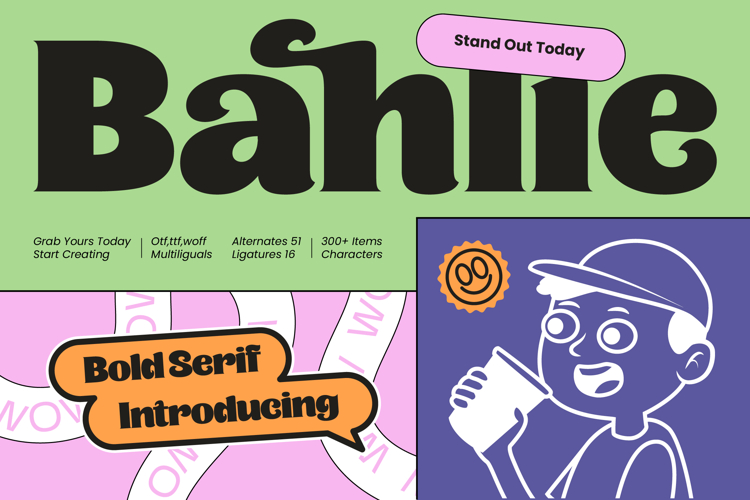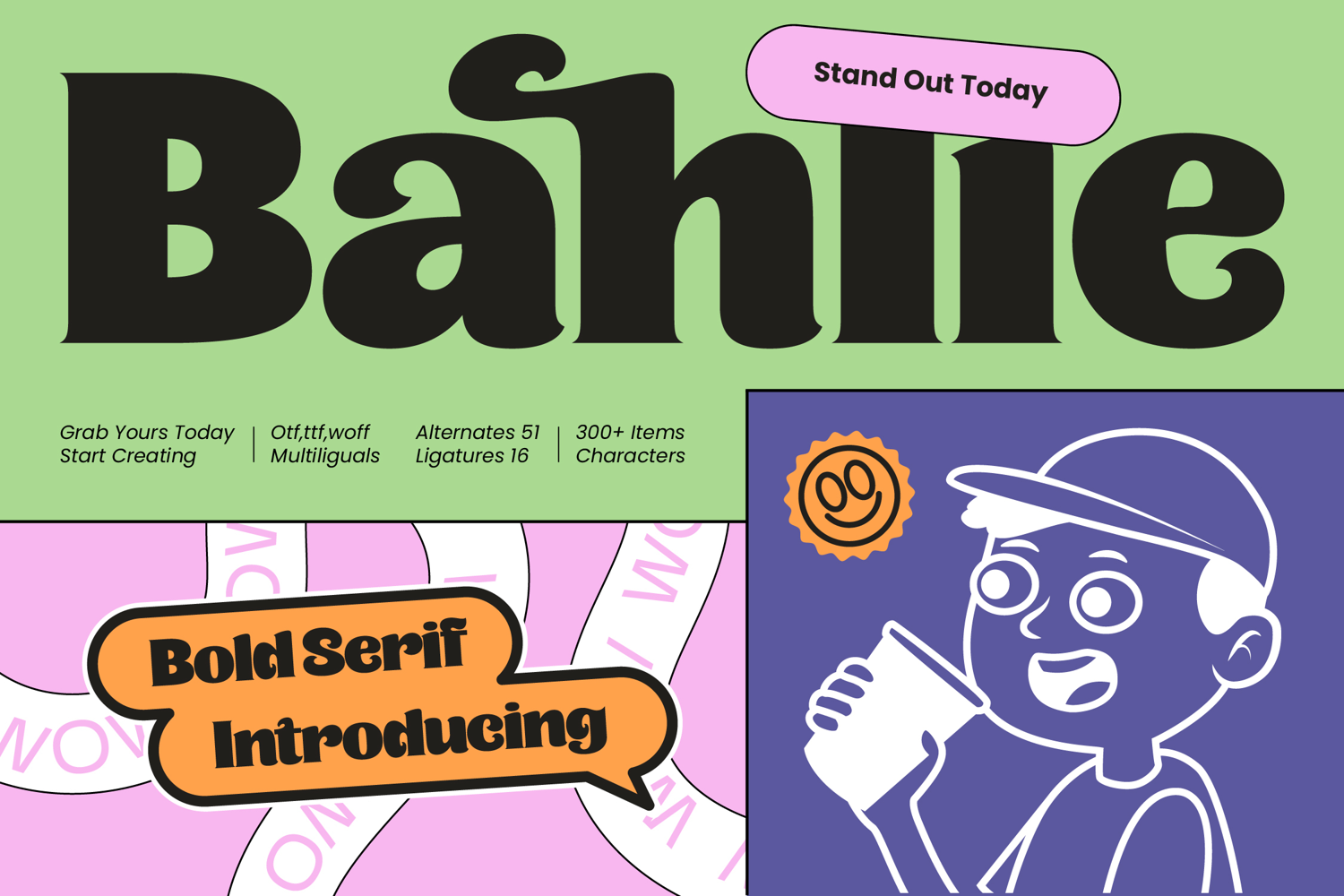
Bahlie - Groovy Bold Display Serif
Elevate your visual identity with a typeface that demands attention and exudes confidence. Bahlie - Groovy Bold Display Serif is a masterclass in retro-inspired typography, blending nostalgic 70s aesthetics with a modern, high-contrast finish. Its bold, fluid curves and commanding display characteristics create a powerful presence that is both playful and authoritative. This typeface is meticulously engineered for impact, ensuring your headlines resonate with a dynamic visual rhythm that stands out in any crowded digital or print landscape.
Discover the ultimate solution for high-impact creative projects that require a unique personality. This font is perfectly suited for luxury branding, bold packaging design, and editorial layouts that seek to make a statement. Whether you are developing a premium lifestyle brand or eye-catching social media graphics, Bahlie - Groovy Bold Display Serif provides the sophisticated flair needed to captivate a discerning audience. It is an ideal choice for poster design, apparel branding, and promotional headlines where a distinctive, groovy aesthetic is paramount to the brand story.